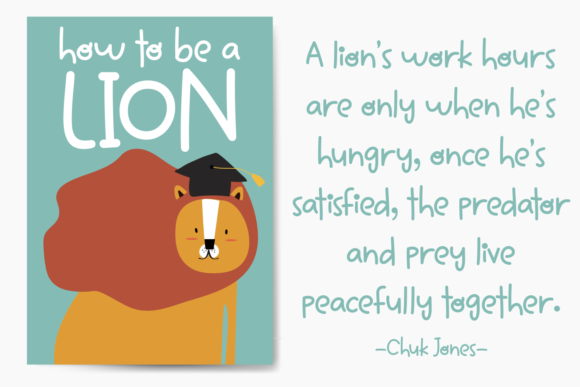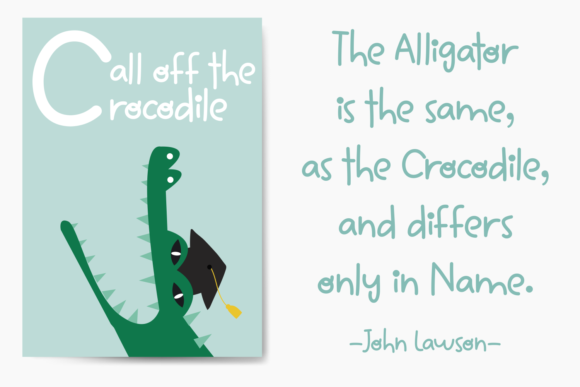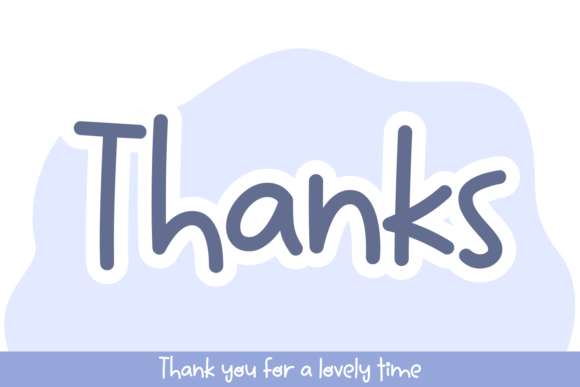
Cliver Font
About Cliver Font
Introducing “Cliver,” an inviting and playful handwritten font that radiates joy and creativity in every character. With its beautifully rounded letters and easy-to-read style, Cliver adds a delightful charm to any project. Whether you’re designing invitations, posters, social media graphics, or branding materials, this typeface is definitely a must-have for your collection.
Cliver’s playful vibe instantly captivates attention and injects a sense of fun into your designs. Its smooth and rounded edges create a friendly and approachable feel, making it perfect for projects aimed at audiences of all ages.
With Cliver, expressing your creativity is effortless. Its inviting and fun demeanor lends itself well to a wide range of applications, from casual invitations to vibrant posters and everything in between. Let Cliver be the go-to font that infuses your designs with energy and personality.
Experience the joy of Cliver and watch as it brings your ideas to life with its playful charm. Whether you’re a seasoned designer or just starting out, this font invites you to explore new possibilities and embrace your creativity with confidence.
Unlock the full potential of your designs with Cliver and let its inviting and fun personality shine through. With its easy readability and irresistible charm, this font is sure to become a favorite in your design arsenal, adding a touch of whimsy to every project.